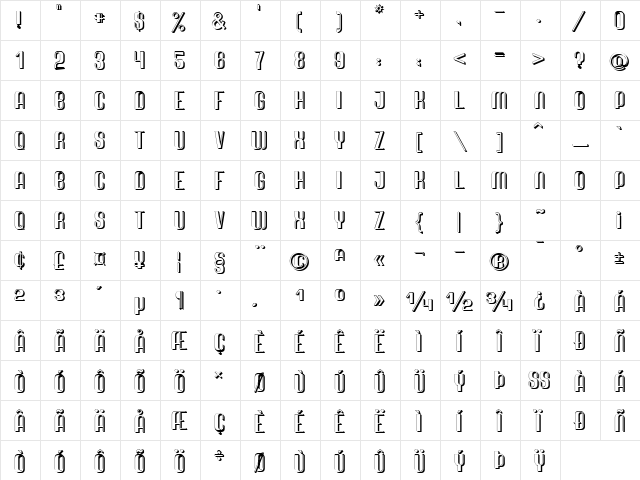
Quimbie 3D Regular Free Font
Quimbie 3D Regular
Foundry: CAT - Ing. Peter Wiegel. Wolgast
Designer: Peter Wiegel
Design Context for Quimbie 3D
Quimbie 3D is a composed and adaptable typeface that performs quietly and consistently across a wide range of design contexts.
Pro Tip: Use Quimbie 3D in both headline and body roles to test its range before committing to a single application.